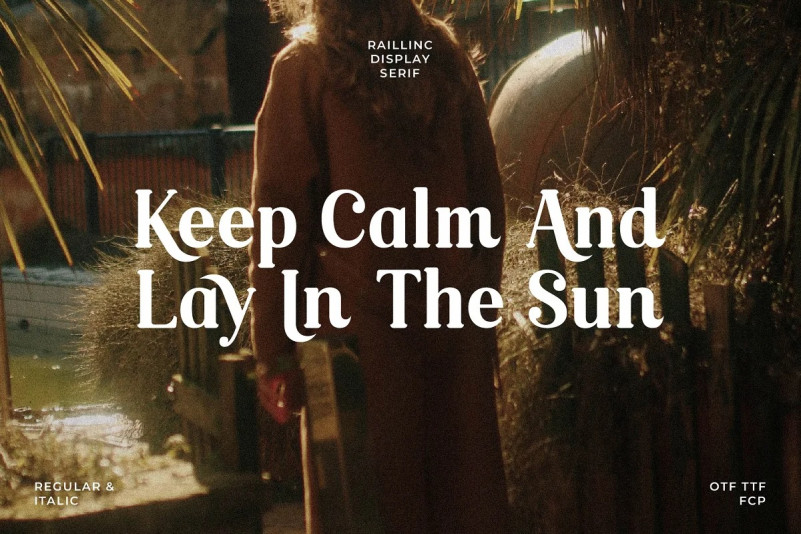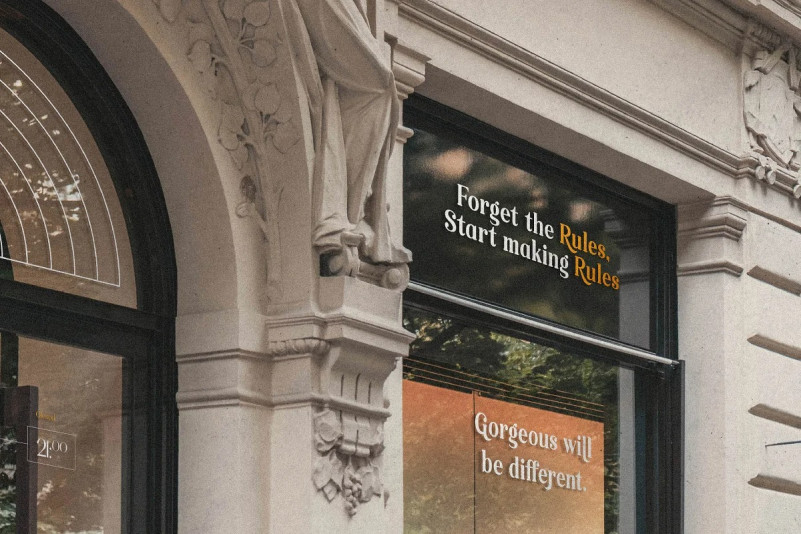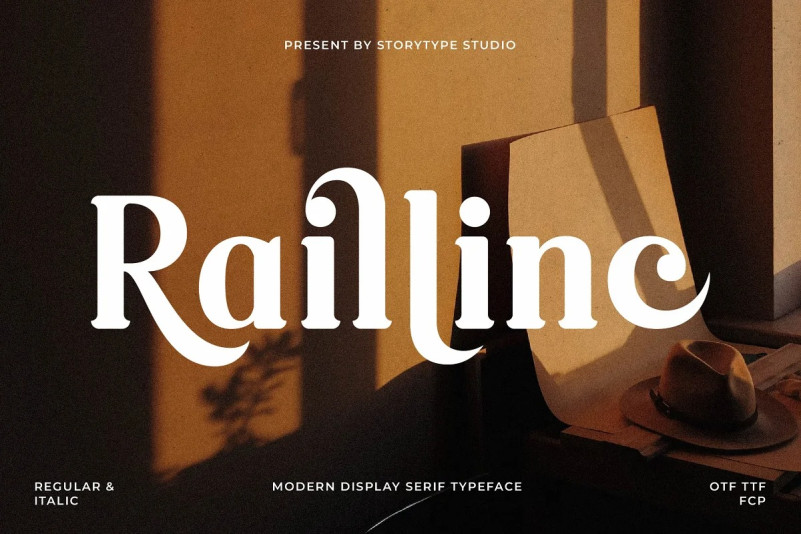
Raillinc Font
Raillinc Serif Font , created by Storytype, a serif modern and classic typeface that has own unique style & modern look. This typeface is perfect for an elegant & luxury logo, book or movie title design, fashion brand, magazine, clothes, lettering, quotes, and so much more.